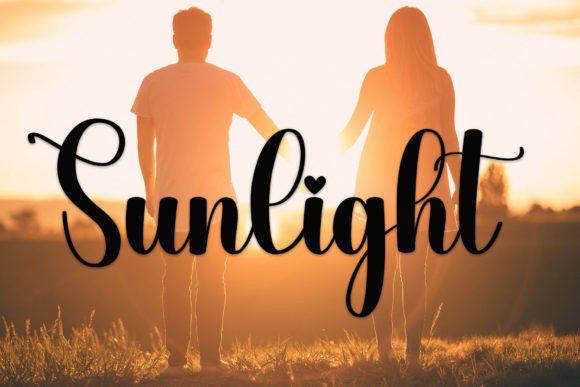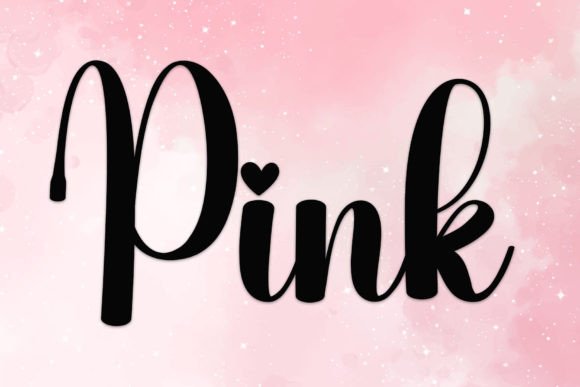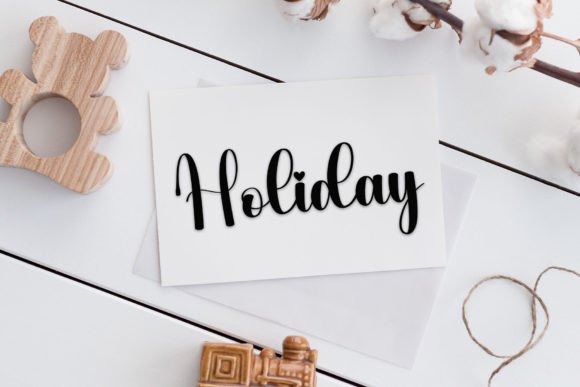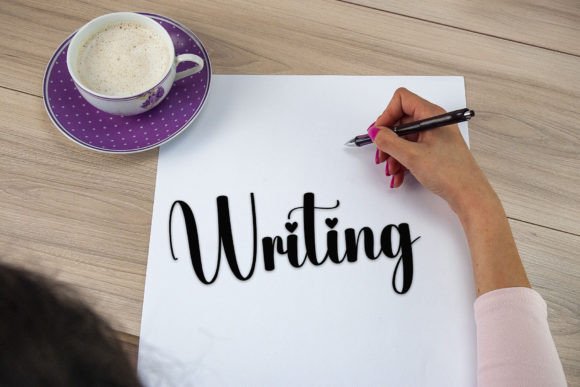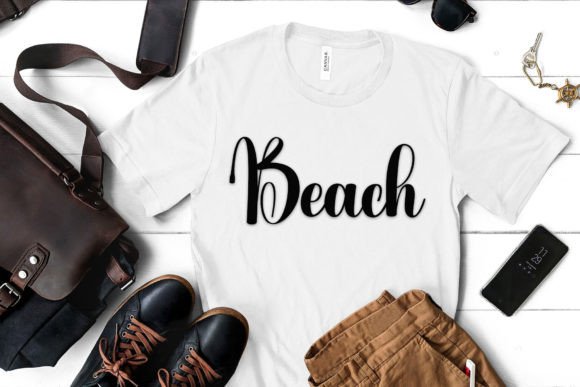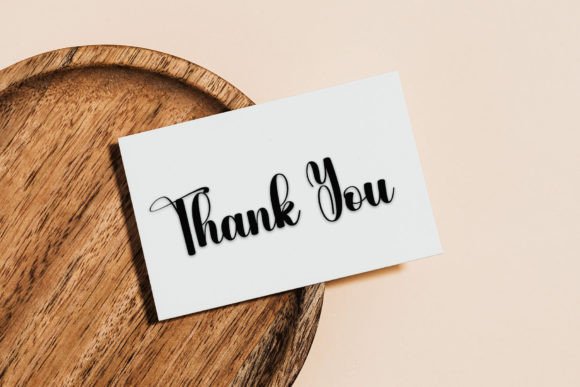
Find Your Perfect Match: Beautiful Font
As a designer, there’s nothing quite like the rush of creativity that comes when you stumble upon the perfect font. It’s that moment when every letter seems to dance on the page, and you know you’ve found your partner in crime for your next project. For me, that moment came when I discovered the Beautiful Font.
This elegant handwritten font is a masterclass in understated sophistication. With its delicate touch and timeless style, it’s the perfect addition to any project looking to exude refinement and poise. Whether you’re working on a wedding invitation, a branding campaign, or a social media graphic, the Beautiful Font is sure to elevate your design to new heights.
As a valuable addition to any designer’s toolkit, the Beautiful Font offers a level of versatility and sophistication that’s hard to find. Its unique blend of classic and modern elements makes it an ideal choice for designers looking to create truly unforgettable designs.
Key Features of Beautiful Font
• Unique Characteristics: The font features a unique blend of modern and elegant design elements, including subtle flair and intricate details, making it stand out in digital and print applications.
Designer Review: Beautiful Font
Overall, I think Beautiful Font is a great addition to any designer’s toolkit. ✨ The font’s elegant and refined aesthetic makes it perfect for high-end branding and marketing materials. ✨ The clean lines and modern design also lend themselves well to digital applications, such as mobile apps and websites. ✨
One of the standout features of Beautiful Font is its versatility. It comes in a wide range of weights and styles, making it easy to adapt to different design needs. ✨ The font also has excellent legibility, making it a great choice for body text.
While Beautiful Font is a solid choice, there are a few limitations to consider. ⚠️ The font may not be as bold or attention-grabbing as some other options, which can make it less effective for headlines or calls-to-action. ⚠️ Additionally, the font may not be as well-suited for casual or informal designs, as it tends to come across as more formal.
In conclusion, I would highly recommend Beautiful Font for designers who need a professional and elegant font for their projects. While it may not be the best choice for every situation, it’s a solid addition to any designer’s toolkit.
• Elegant and refined aesthetic
• Clean lines and modern design
• Versatile and adaptable
• Excellent legibility
• Wide range of weights and styles
Beautiful Font: A Practical Application Guide
Beautiful Font is ideal for:
• Designing wedding invitations and stationery.
• Creating business cards and marketing materials.
• Designing website headers and footers.
Remember to use Beautiful Font in combination with other design elements to create a visually appealing and effective design.